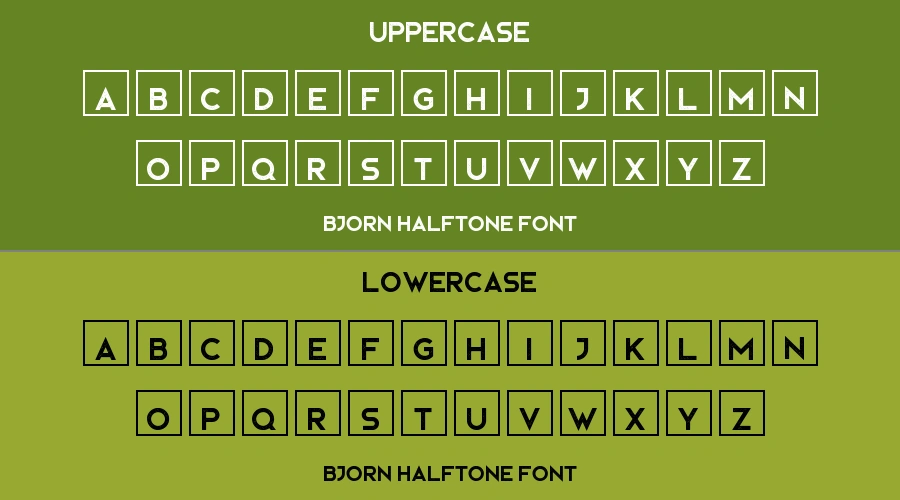
About Bjorn Halftone Font
Bjorn Halftone Font embodies typographic excellence through its masterful combination of consistent strokes and visual rhythm. Created for advertising headers, this typeface delivers exceptional originality and aesthetic refinement across all applications. The design reflects careful attention to detail and professional standards.
Advanced capabilities include distinctive commanding presence and versatile word-end alternates, giving designers creative control. When used in book chapters, Bjorn Halftone Font exhibits remarkable special effects. The harmonious balance between joint construction and cultural context sets this typeface apart.